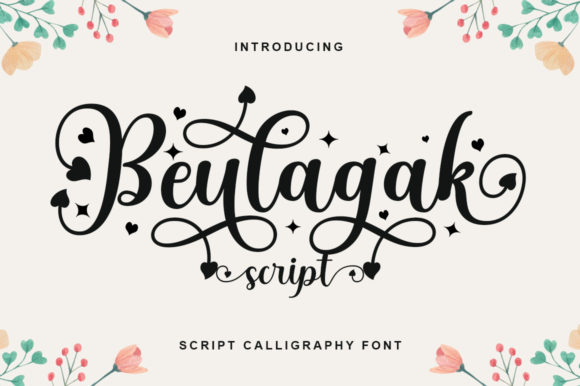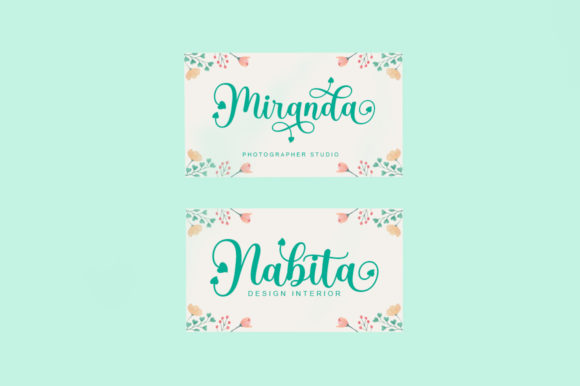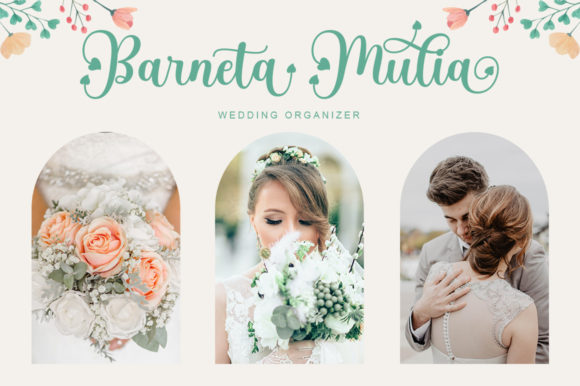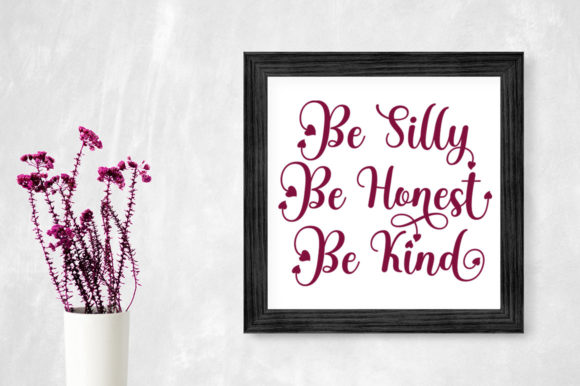
About Beulagak Script Font
Beulagak Script font is a delightful and distinctive handwritten typeface that combines cuteness, elegance, and uniqueness in a harmonious blend. Its carefully crafted design makes it an instant favorite for a wide range of creative projects, offering the potential to elevate your ideas to new heights of creativity and visual appeal.
For projects that require a touch of charm and playfulness, Beulagak Script font shines as a versatile choice. Whether you’re designing invitations for a children’s party, creating whimsical illustrations, or crafting personalized stationery, this font adds a sense of joy and lightheartedness that captures the imagination and resonates with audiences of all ages.
In the realm of elegant and sophisticated designs, Beulagak Script font maintains its uniqueness while exuding a sense of refinement. It’s well-suited for creating logos, branding materials, and packaging designs that require a touch of handcrafted elegance. The font’s distinctive letterforms and carefully designed curves contribute to a sense of authenticity and quality, making your brand identity truly stand out.
Beulagak Script font’s inherent uniqueness lends itself well to creating custom designs that make a statement. Whether you’re working on personalized gifts, bespoke artwork, or DIY projects, this font provides the flexibility to infuse your creations with a one-of-a-kind touch. Its access to various glyphs and swashes through PUA encoding allows you to experiment with different styles and decorative elements, giving your designs a custom-made look.
For digital creations, such as social media graphics and blog headers, Beulagak Script font adds a refreshing and eye-catching element. Its combination of cuteness and elegance creates a visual contrast that draws attention and engages viewers. Whether you’re sharing inspirational quotes, announcing special offers, or showcasing your latest creations, this font brings a sense of originality that captivates your online audience.
No matter the project, Beulagak Script font has the power to transform ordinary designs into extraordinary works of art. Its unique blend of cuteness and elegance, along with its easy access to various glyphs and swashes, allows you to unleash your creativity and explore new design possibilities. Embrace the charm of Beulagak Script font and watch your creative ideas come to life in captivating and innovative ways.